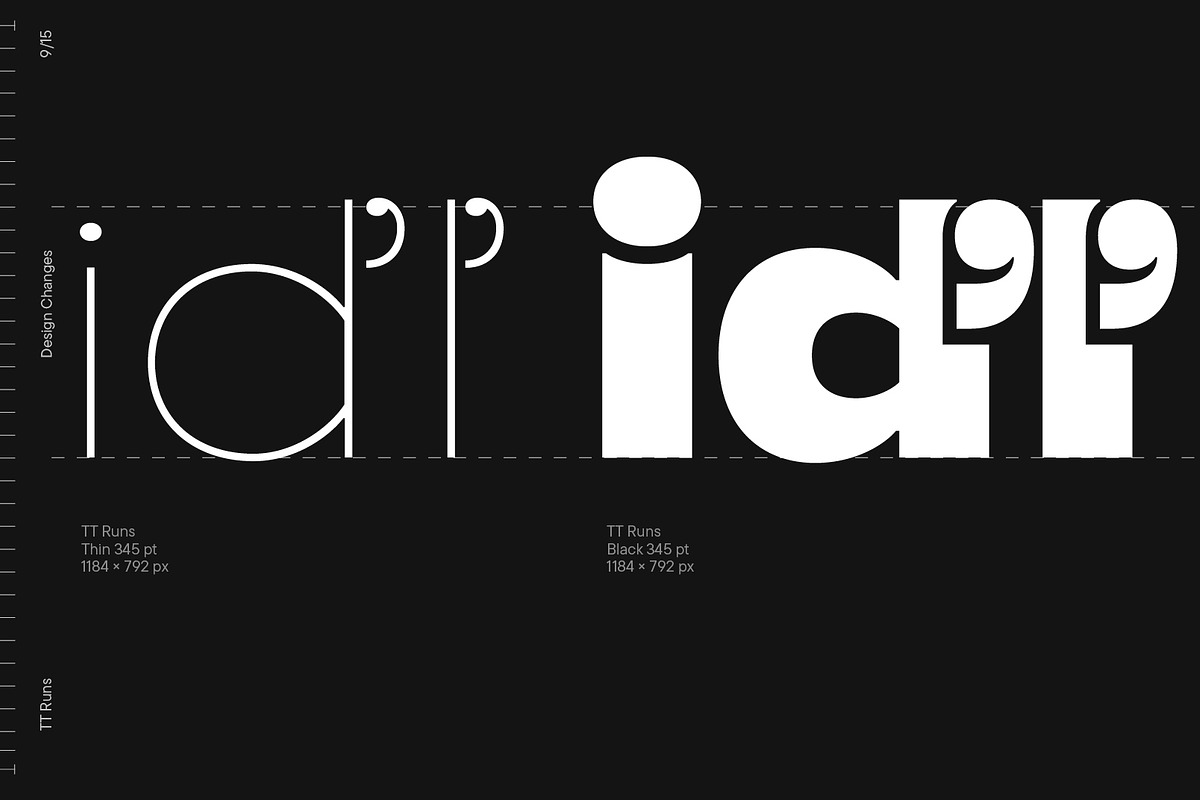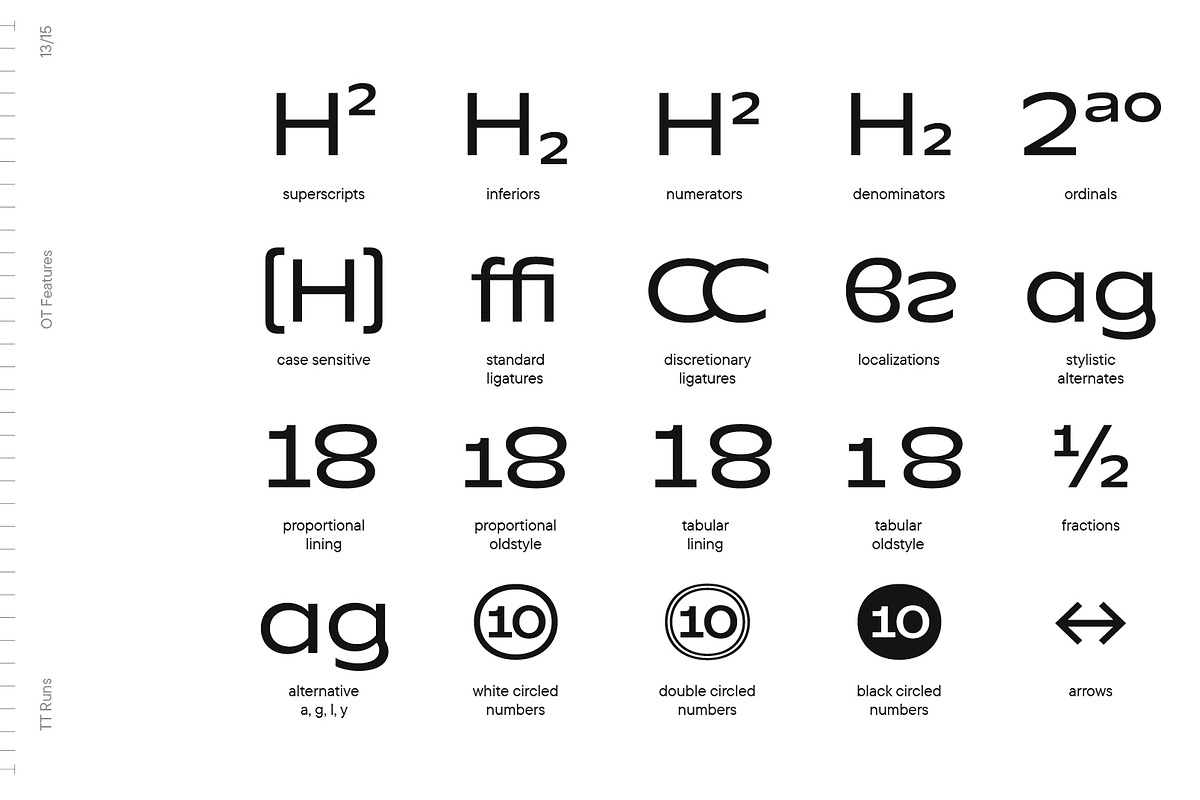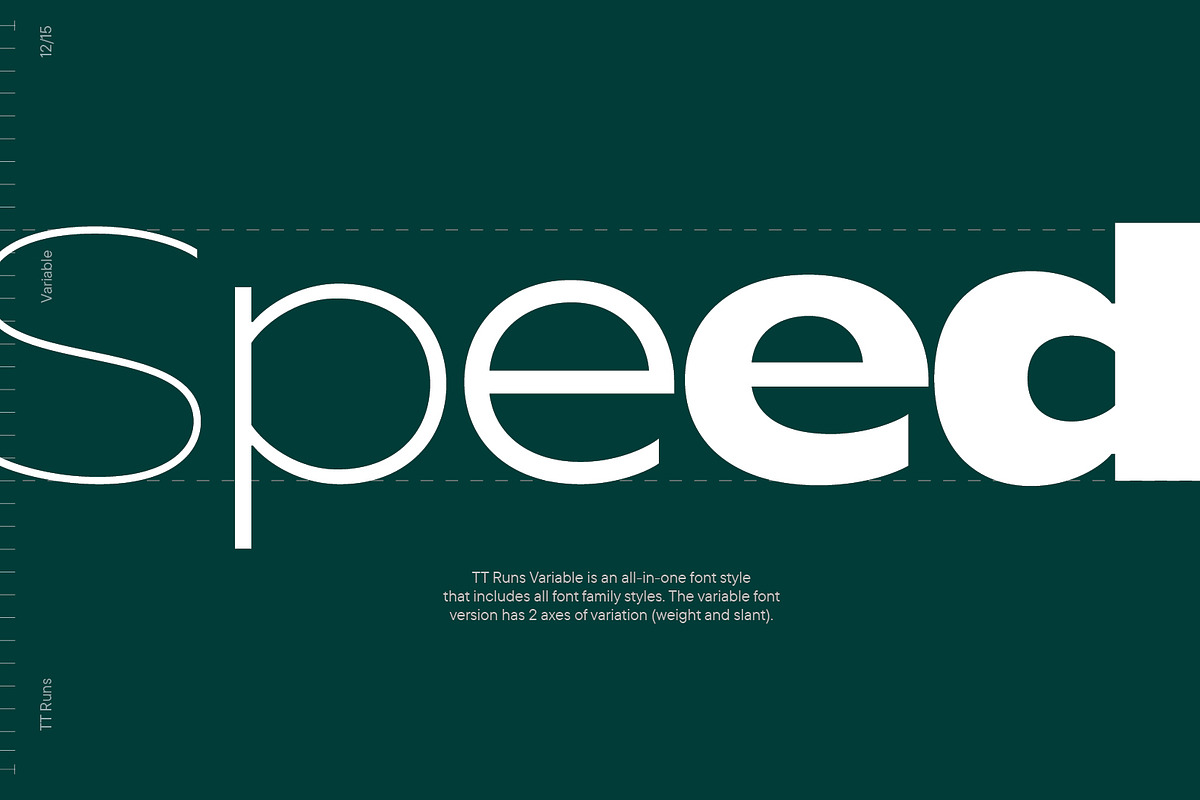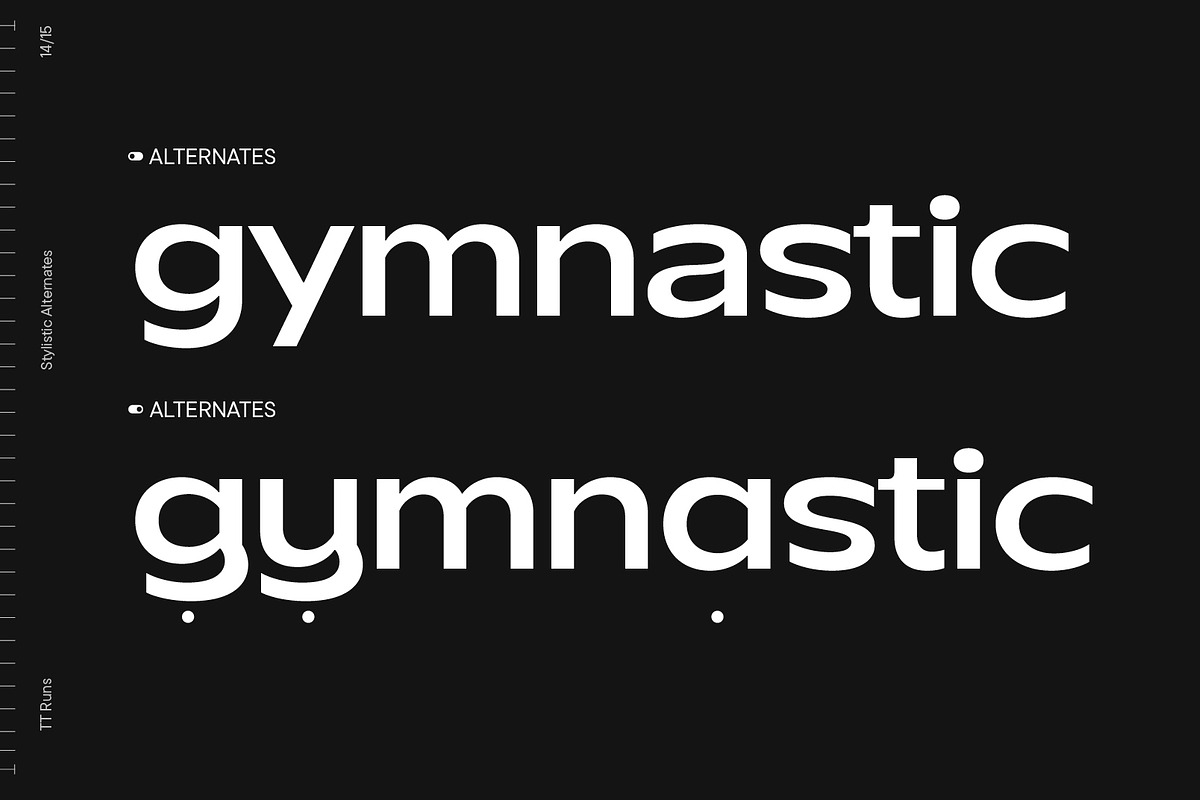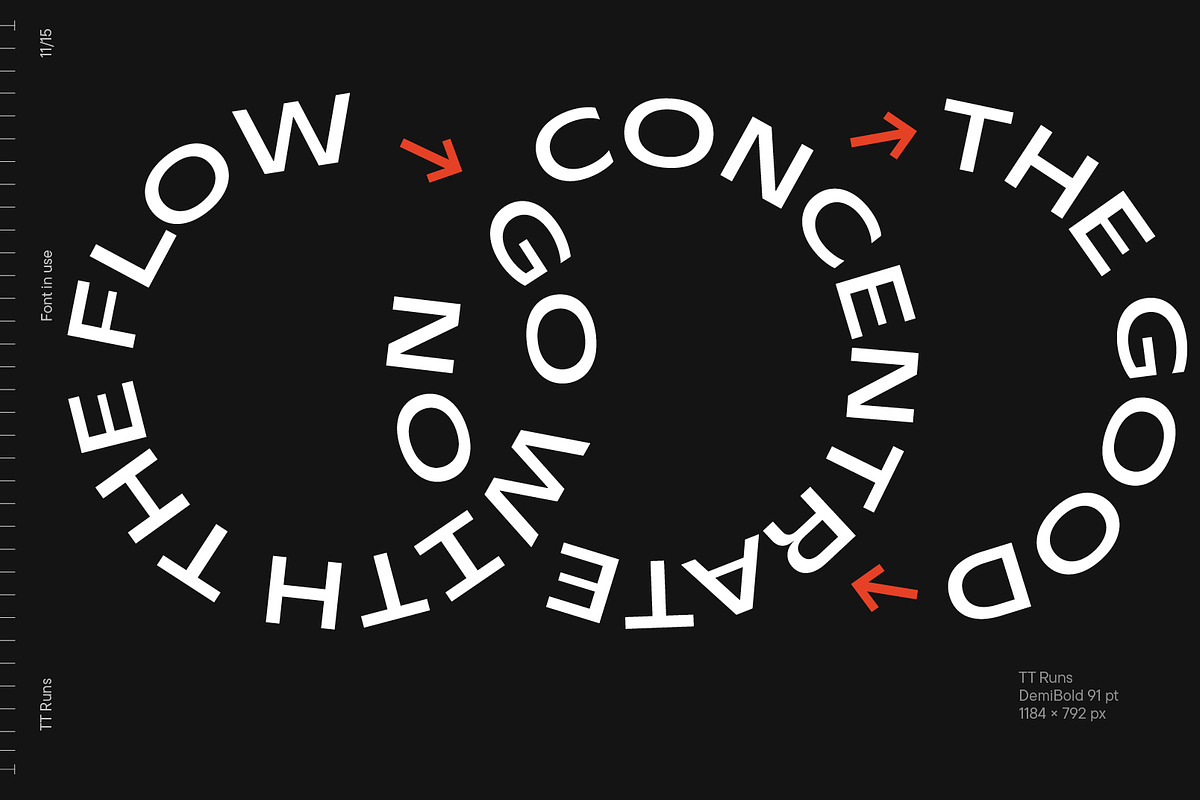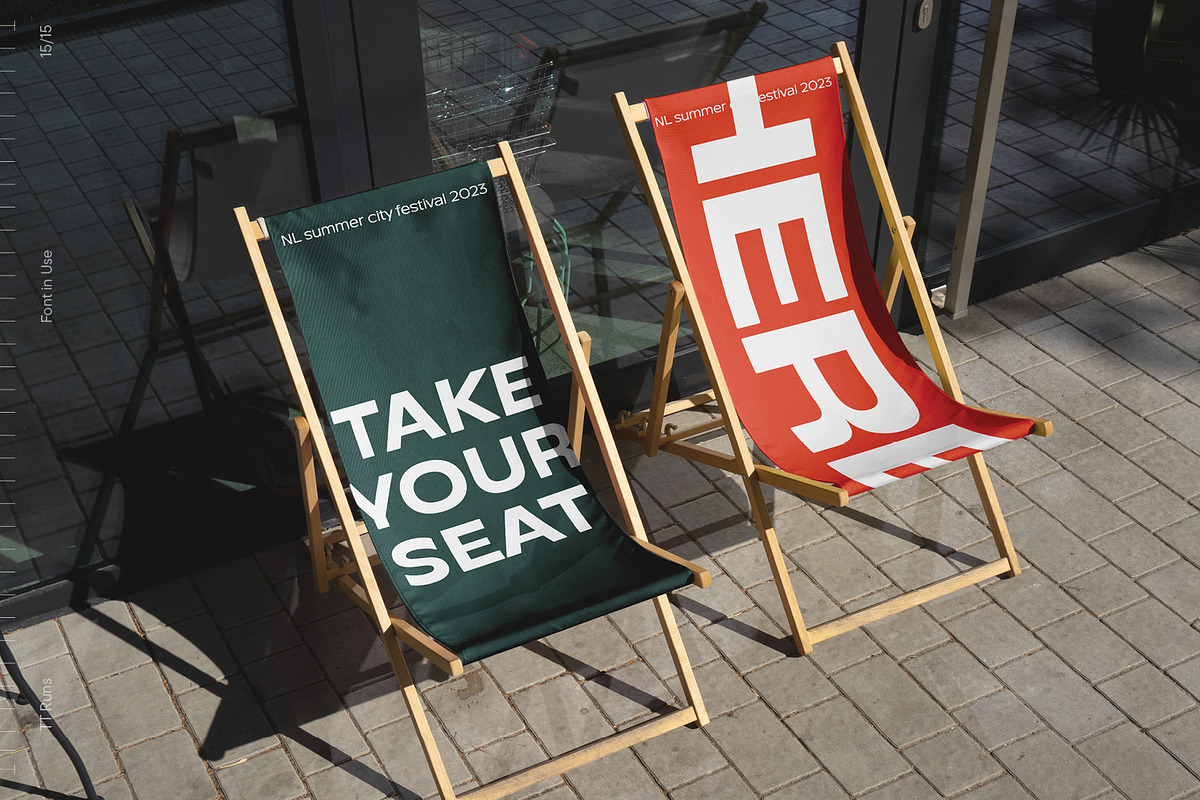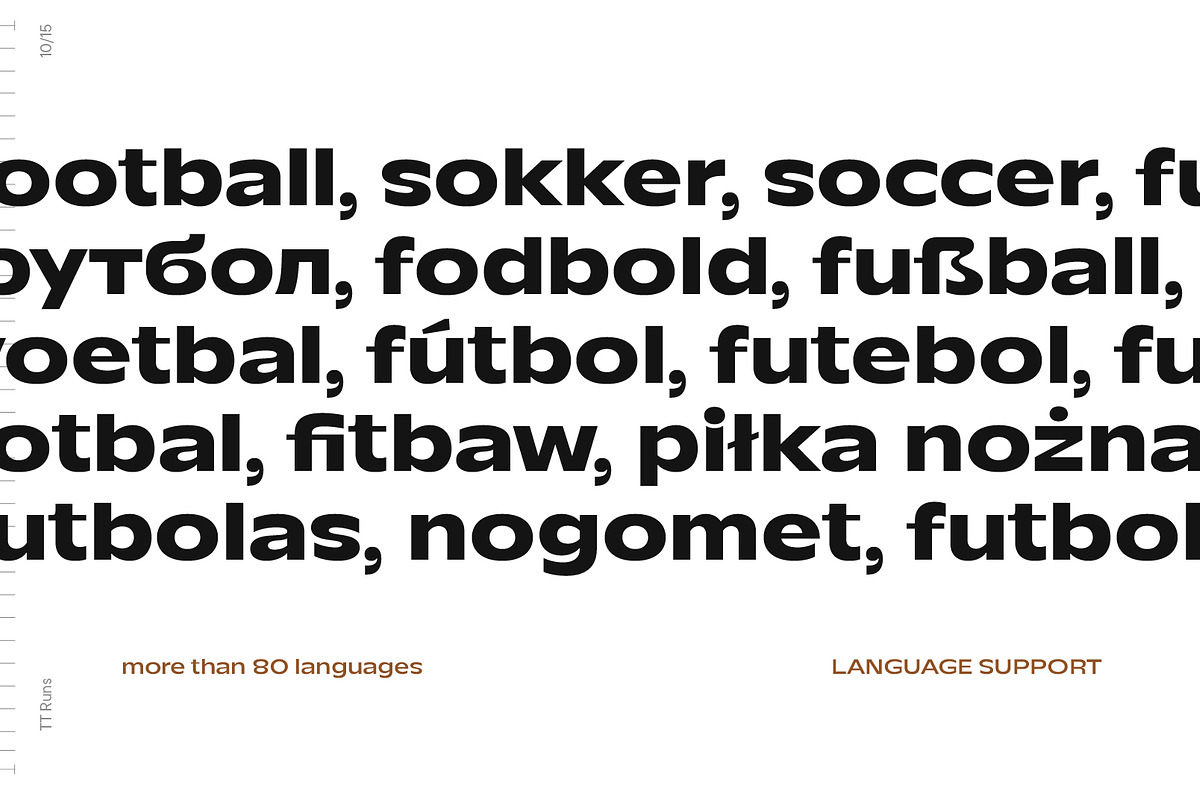
TT Runs
TT Runs Version 2.0—an Unusual Wide-Proportioned Sans Serif! An update that expands the font's capabilities.
TT Runs is a font designed for the sports industry. Before starting the development, we researched the identities of various Olympic venues and analyzed current sports brands. We put in maximum effort to design a unique yet elegant modern font well-suited for the sports sector.
TT Runs has wide and unusual proportions that are different from traditional ones. It is because of the reversed contrast, which refers to the distinction between the upper and lower parts of letters. The uppercase letters have distinctive inverted proportions, particularly noticeable in characters like K, C, S, and R. This design choice gives the font an original personality and makes the letters look stylish and suitable for both athletic and casual sportswear.
While updating the font, we kept its distinctive characteristics and preserved the graphical look of the majority of the characters. However, we thoroughly redesigned the outlines and italic font styles and updated the font's technical aspects entirely.
As a result, TT Runs has become more convenient to use, and its range of applications has significantly broadened.
- More projects and countries!
The set of each font style has expanded from 791 to 917 characters. We added new languages and characters of the expanded Latin and Cyrillic writing systems.
- Perfect italics!
The new italic font styles are flawless from both graphical and technical points of view.
The updated variable font.
We have united the roman and italic font styles. You can now change the font on the axes of slope and weight, choosing the suitable values.
- The new set of OpenType features!
We added the updated numerators with currency symbols, numbers in filled circles, and localization features for the Dutch, Catalan, Turkish, Serbian, Bashkir, Chuvash, Bulgarian, and Romanian languages.
TT Runs is an expressive font. It looks aesthetically pleasing on both athletic and casual clothing and is well-suited for printing on any material. Due to its proportions, the font is an ideal choice for headings, offering excellent readability and an elegant appearance in bigger blocks of text. Created with the sports industry in mind, this font brings a touch of style to any modern project.
TT Runs consist of 18 styles: 9 upright & 9 obliques, each of which includes 917 glyphs. In addition to the broad language* coverage in the typeface, you can find a bunch of useful OpenType features. Stylistic alternates, standard and discretionary ligatures, old-style figures, numbers in circles, arrows and much more. Full OpenType list of features: aalt, ccmp, locl, subs, sinf, sups, numr, dnom, frac, ordn, tnum, onum, lnum, pnum, case, dlig, liga, salt, ss01, ss02, ss03, ss04, ss05, ss06, ss07, ss08, ss09, ss10, ss11, ss12, calt.